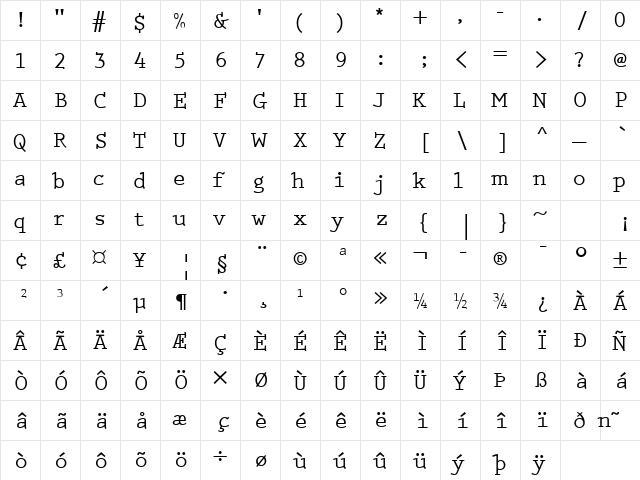
Monotonose Regular Font Preview
Monotonose Regular
Monotonose Regular Font Details
Design Context for Monotonose Typeface
Monotonose brings the precise, column-aligned rhythm of monospaced typography to designs that value technical clarity and systematic order.